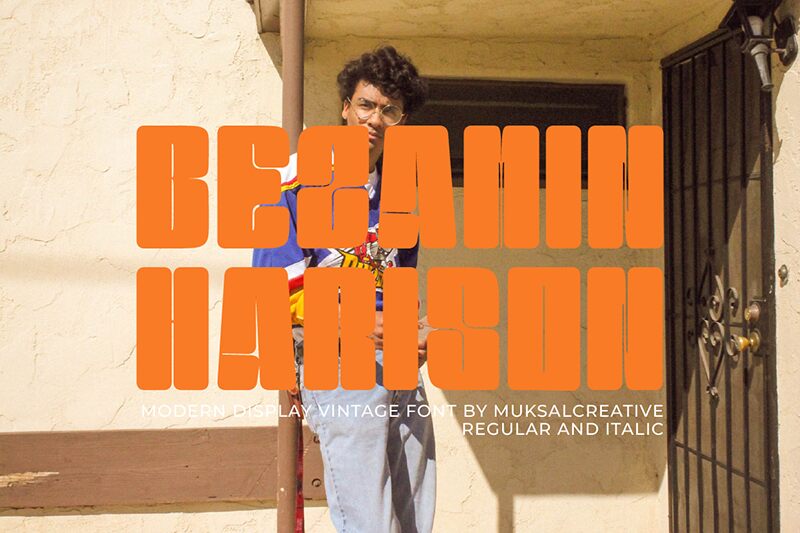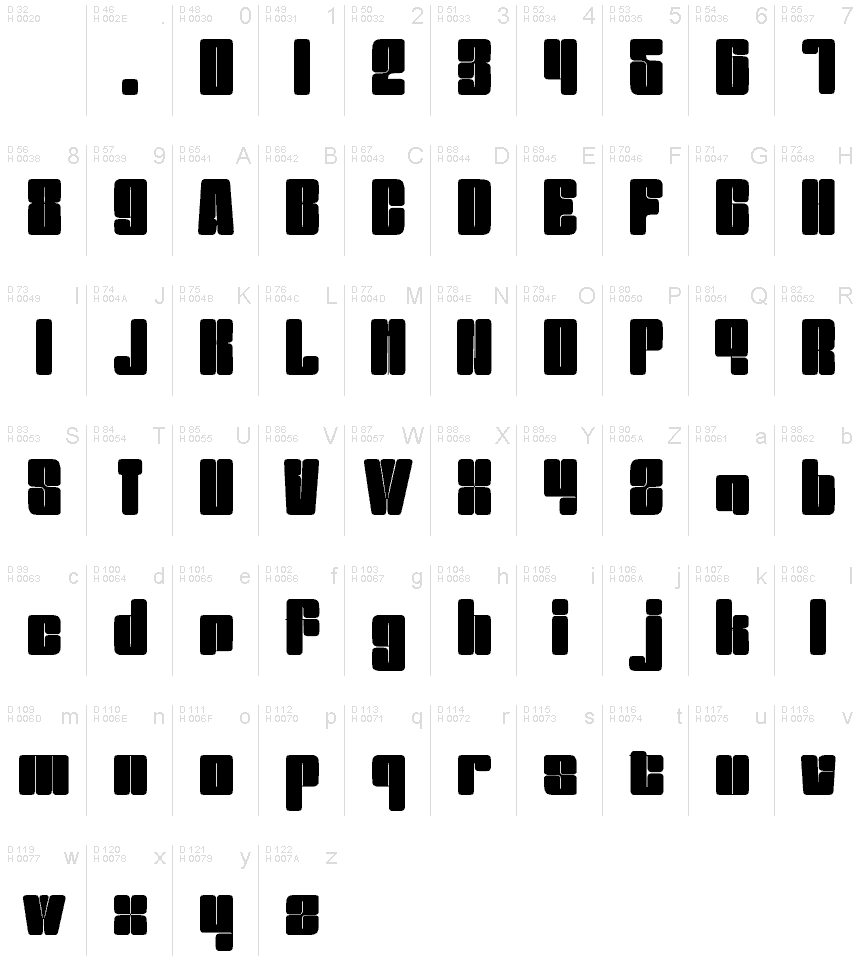
Bezamin Harison Regular
Bezamin Harison font designed by Muksal Creative is a condensed bold display font with an undeniable futuristic appeal. Its aesthetic is highly influenced by modern tech design trends, achieved in this case through a geometric structure with sharp edges of individual characters. This one of a kind free display font can surely steal attention wherever it’s used.
Attention-grabbing projects can be best accomplished using this amazing font, among them are book covers, magazines, newspapers, movie titles and posters. With further use cases to consider: event posters and flyers, business cards, restaurant menus and other branding materials where brand name visibility will add an extra edge to the brand’s identity!